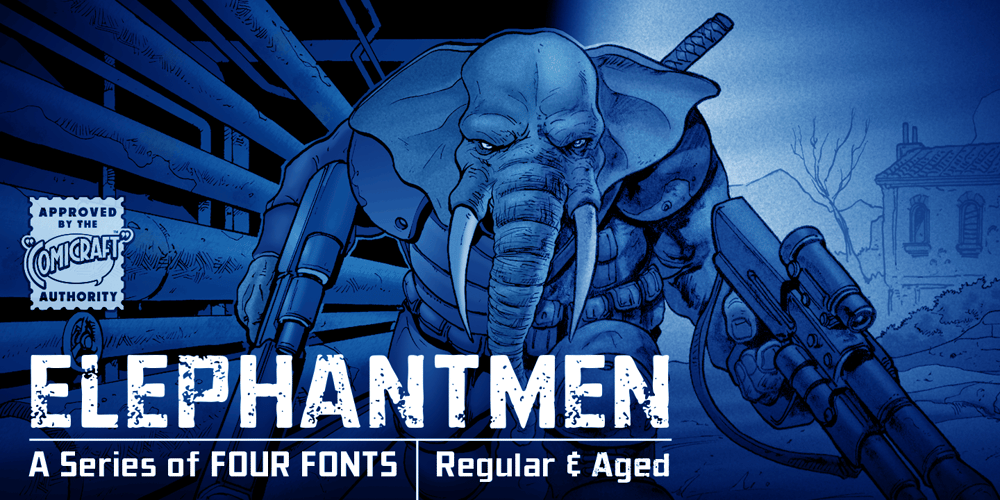
Elephantmen
Elephantmen font
Elephantmen Font Family was designed by John Roshell and published by Comicraft. Elephantmen contains 13 styles and family package options. Worn and torn, dry and cracked, resistant to wind and rain… the skin of the elephant is a thing of dry beauty and ancient wisdom… During the gold rush, the phrase “Seeing the elephant” became synonymous with the high cost of each prospector’s dreams and hopes — not only the prospect of wealth beyond the dreams of avarice in California but also the possibilities of encountering misfortune on the journey. Like the circus elephant, gold was an exotic sight, and seeking it was an unequalled experience, the adventure of a lifetime. Now we’ve created a font much like the skin of an Elephant, and Adventure, Excitement and Really Wild Things are available in the pages of the comic book of the same name, ELEPHANTMEN.